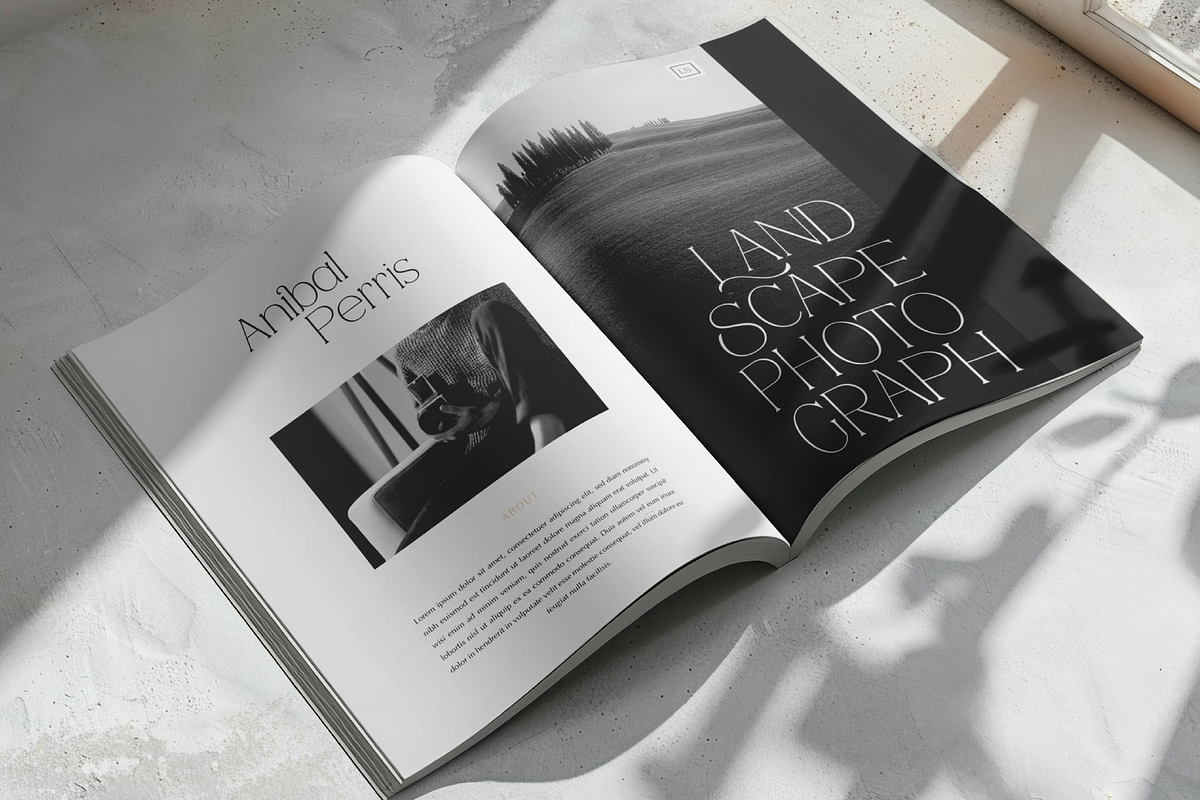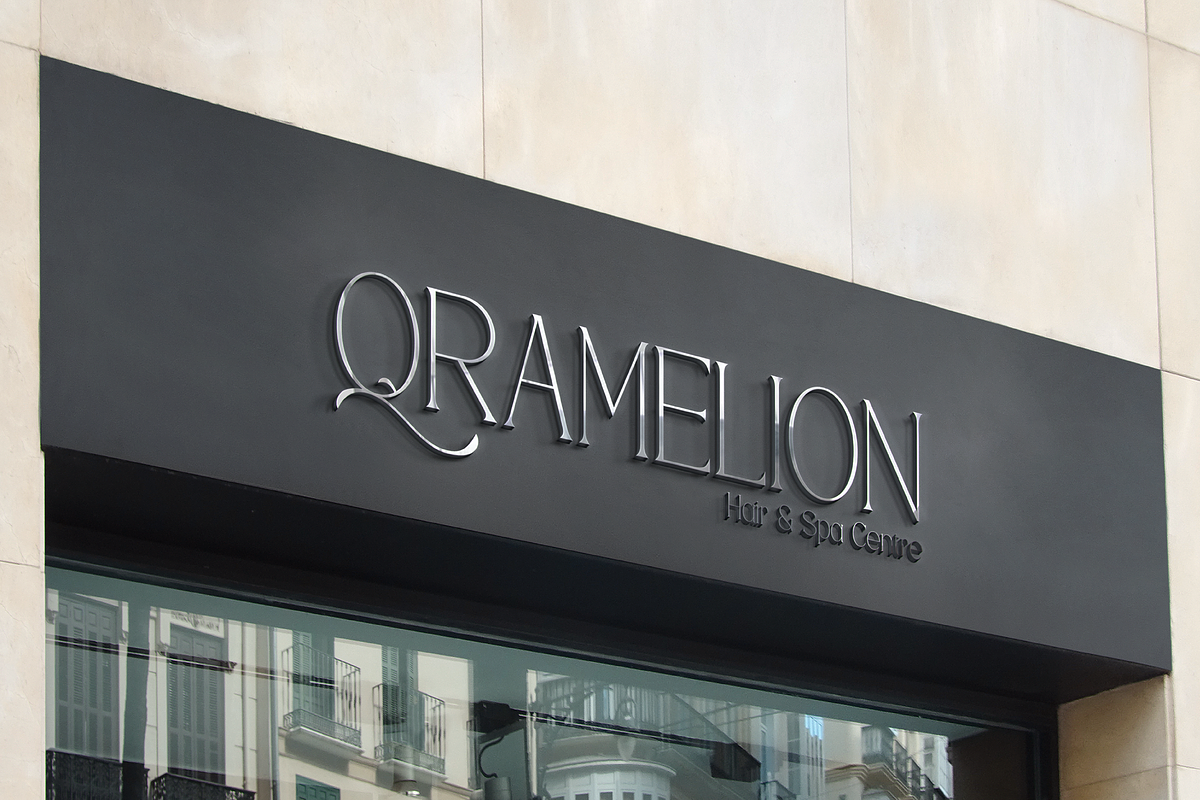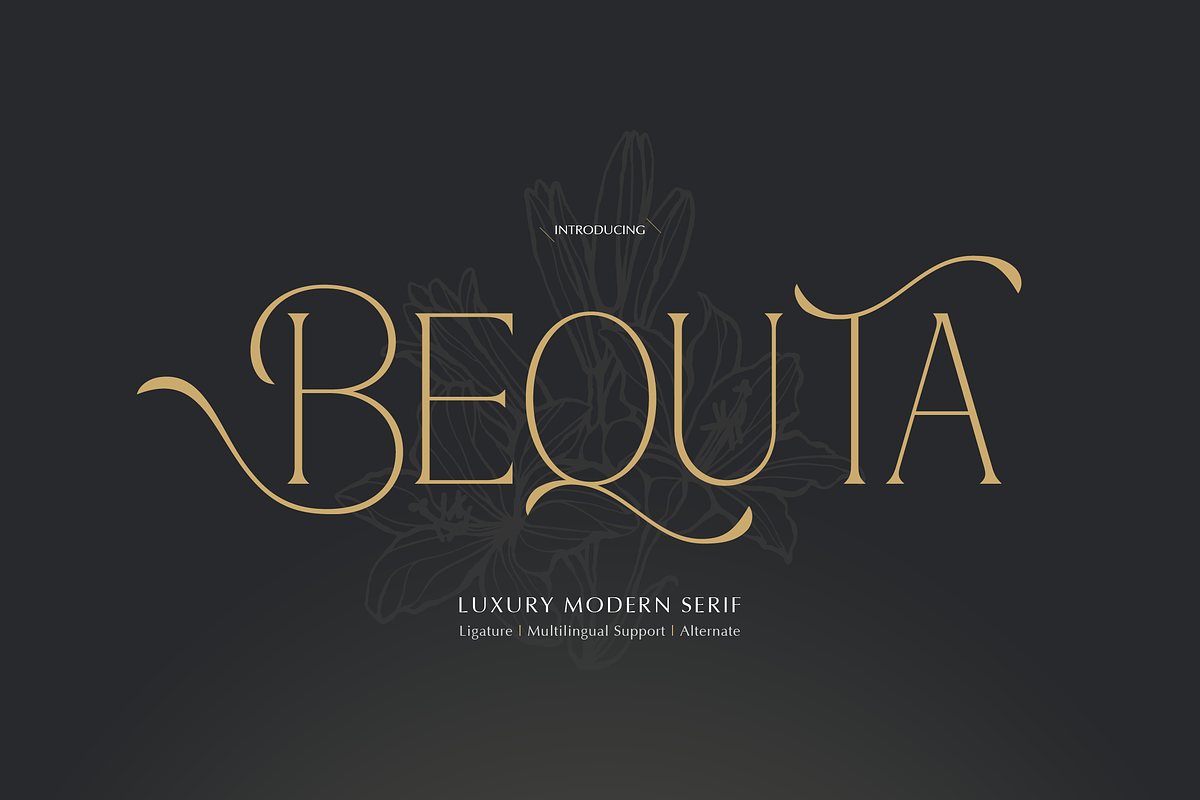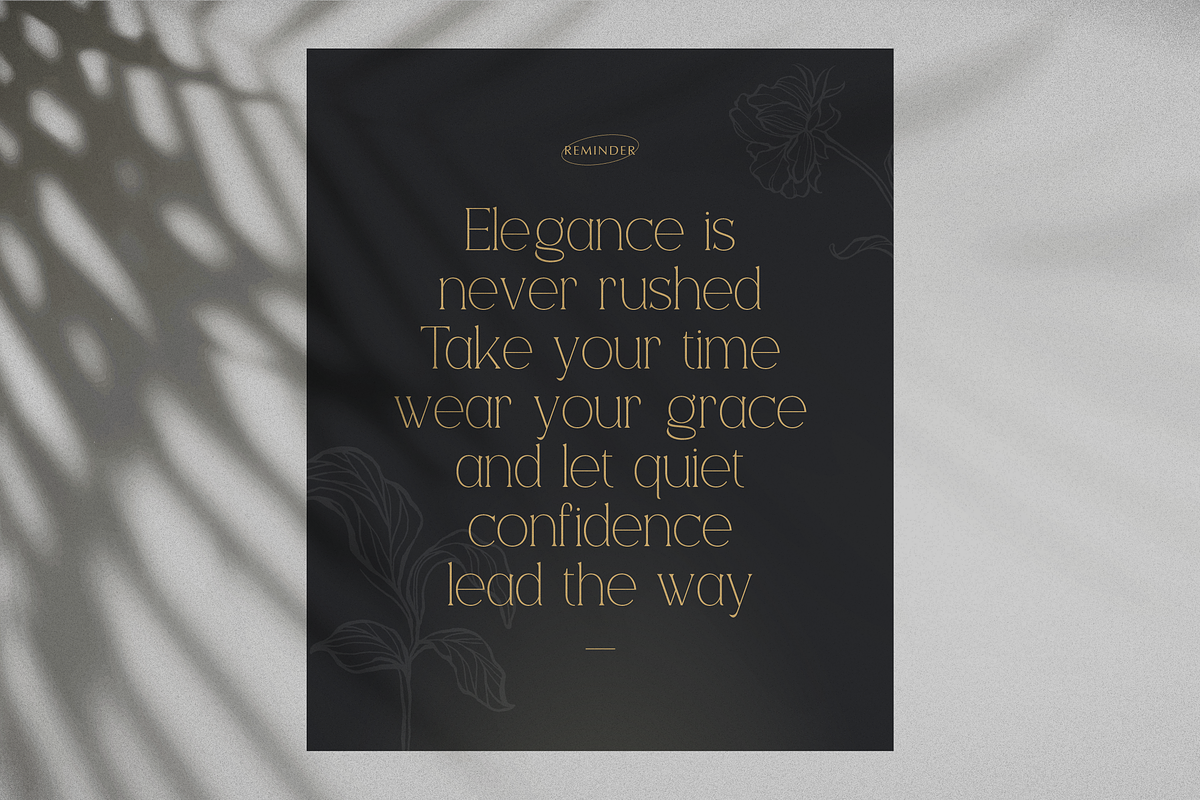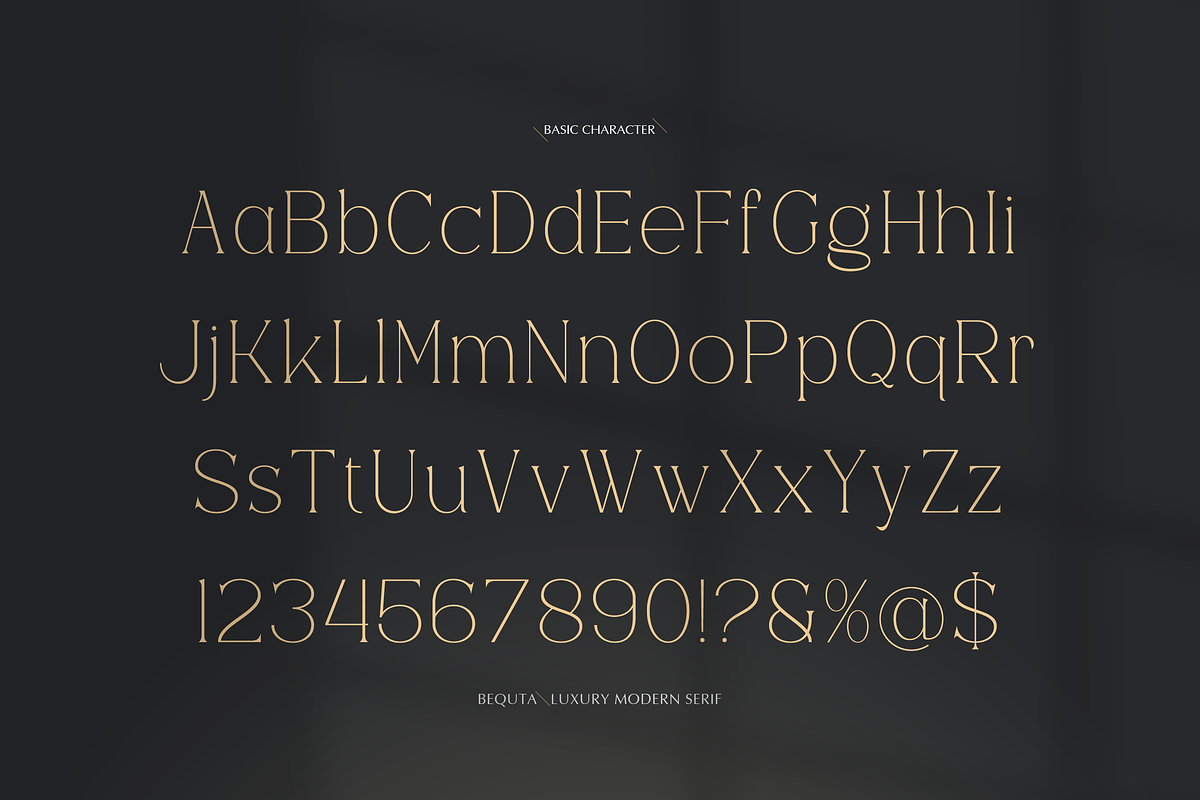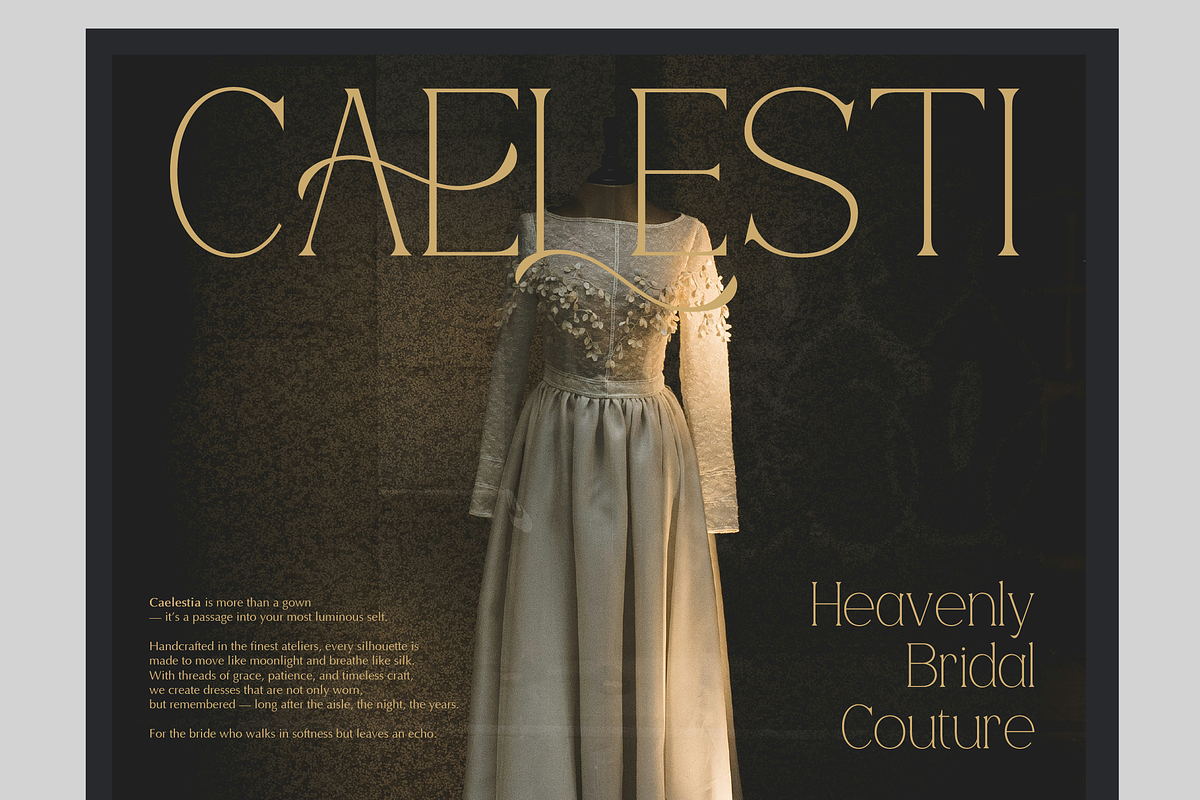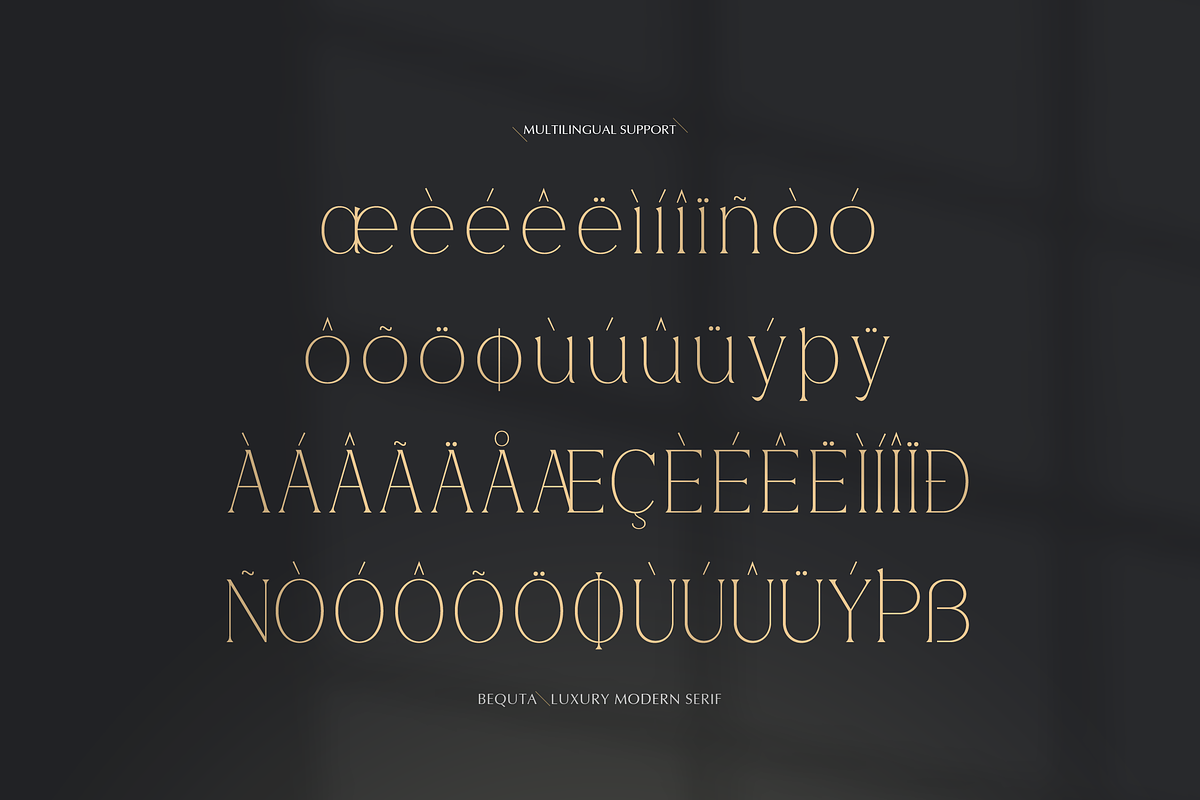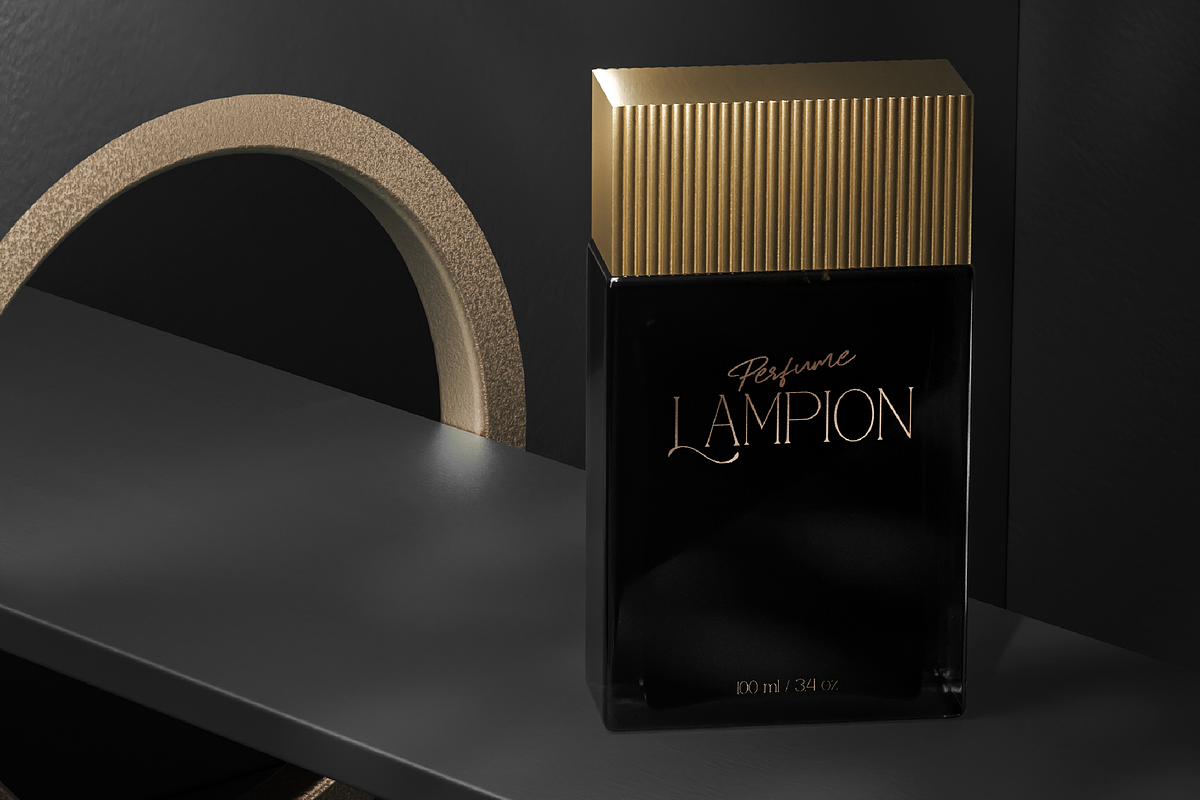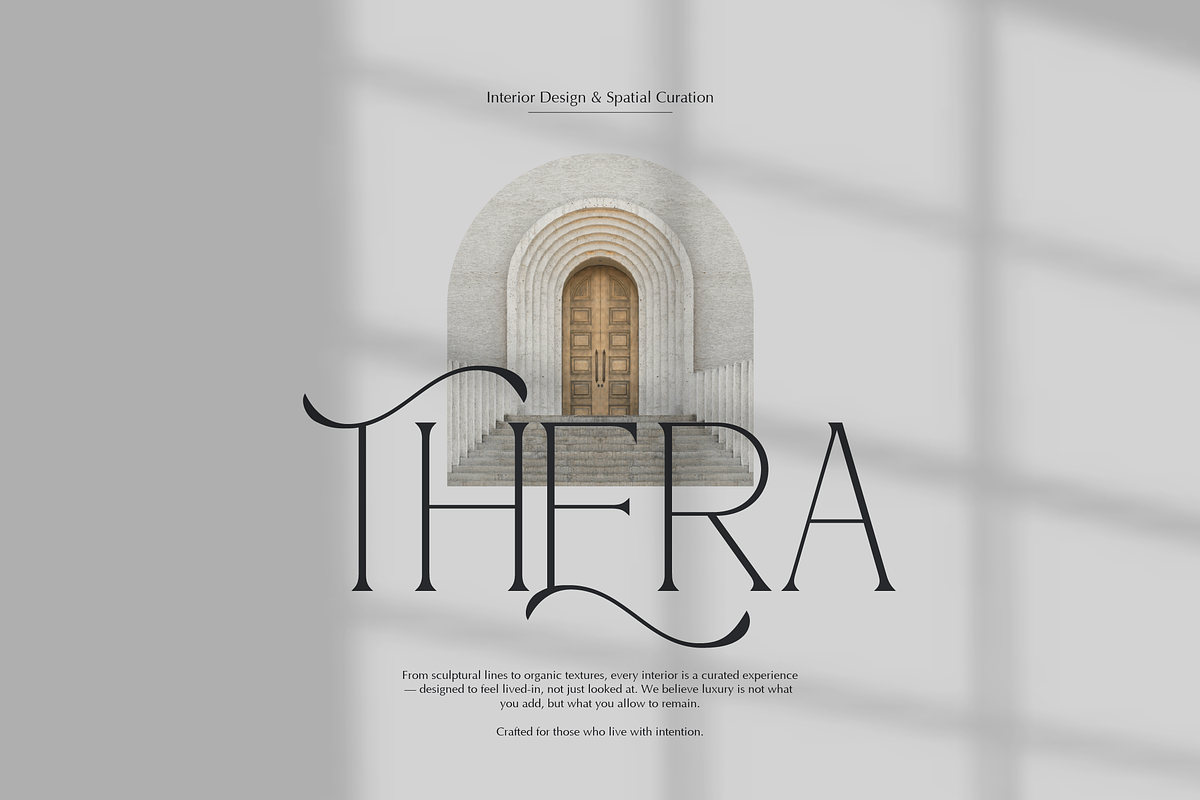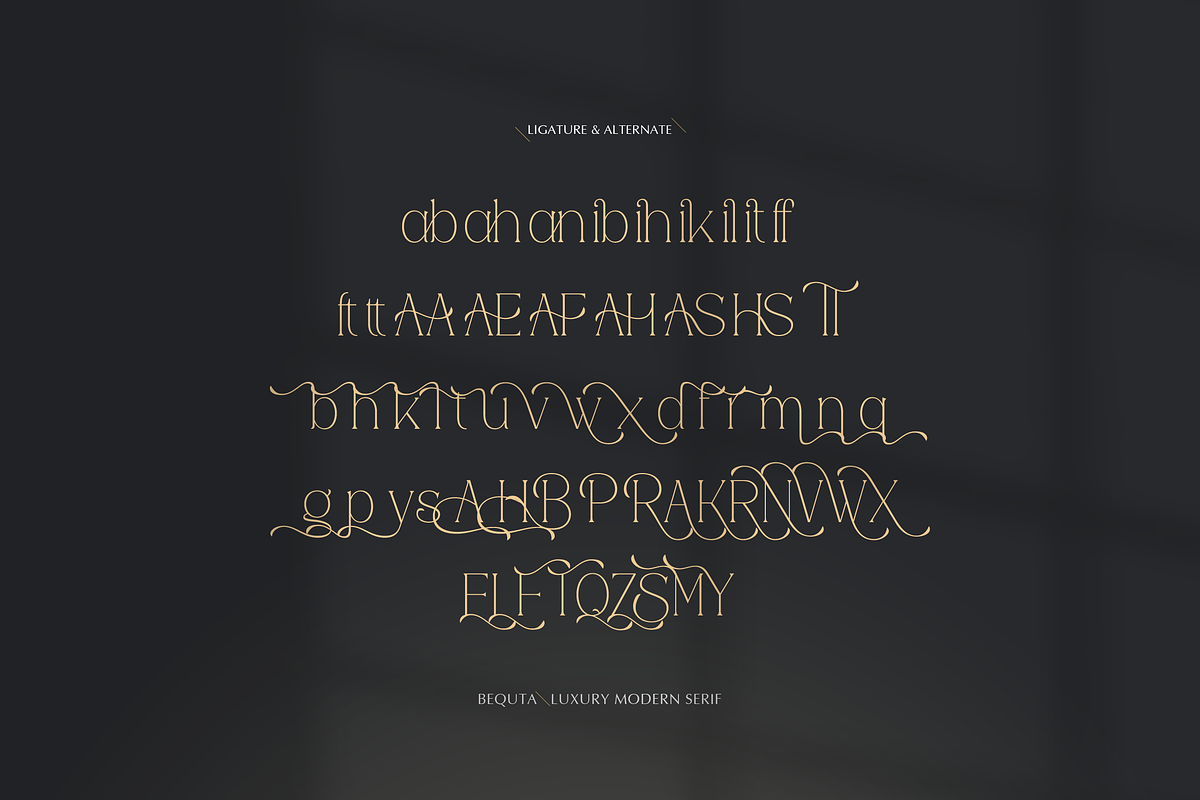
Bequta | Luxury Modern Serif
Bequta | Luxury Modern Serif, from Gracetypestudio, suitable for any projects such as: logos, branding projects, homeware designs, product packaging, mugs, quotes, posters, shopping bags, t-shirts, book covers, name card, invitation cards, greeting cards, label, photography, watermark, special events, and all your other lovely projects that need a Luxury Modern Serif taste.